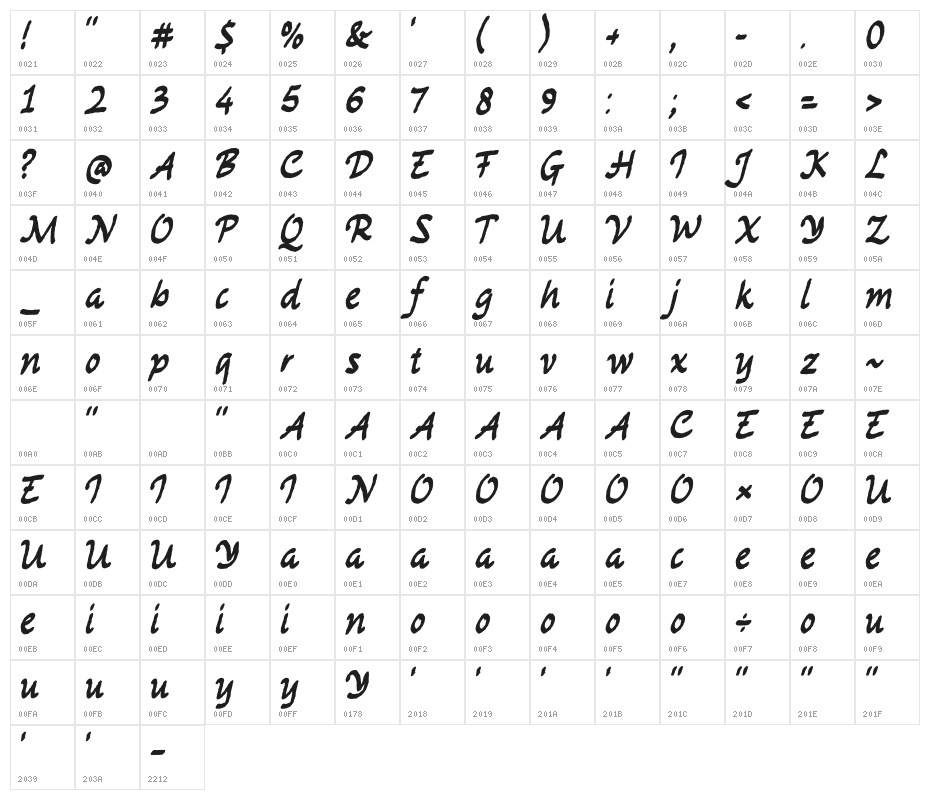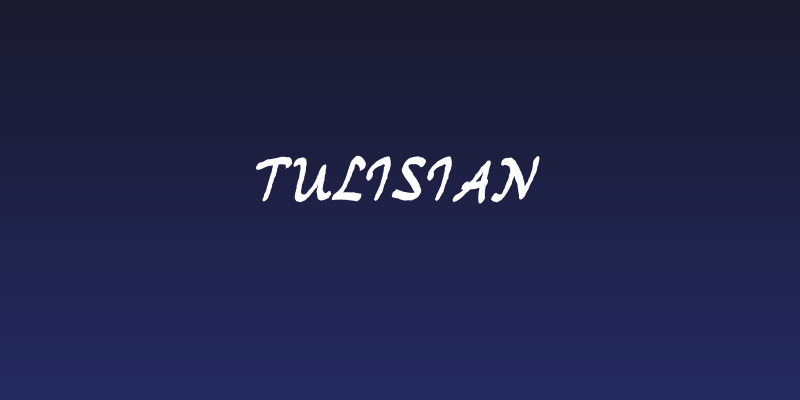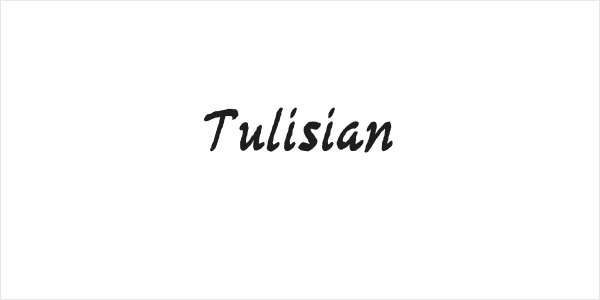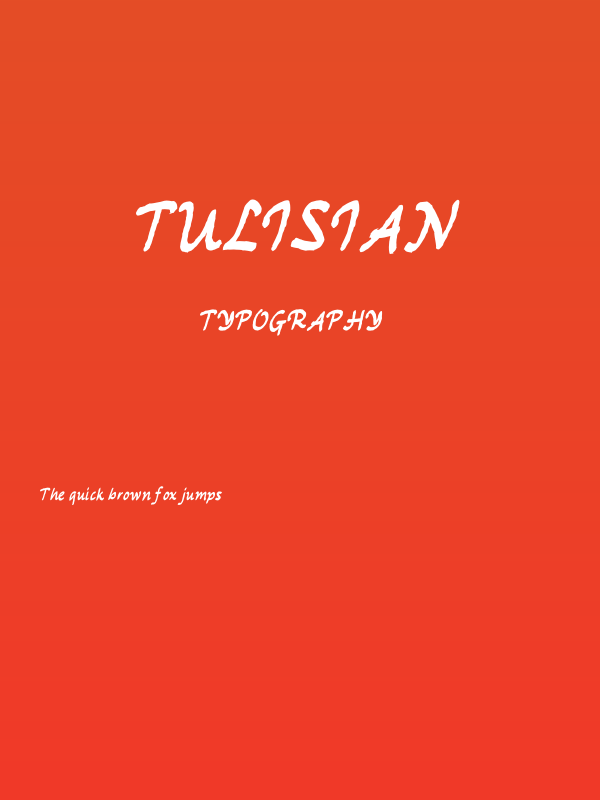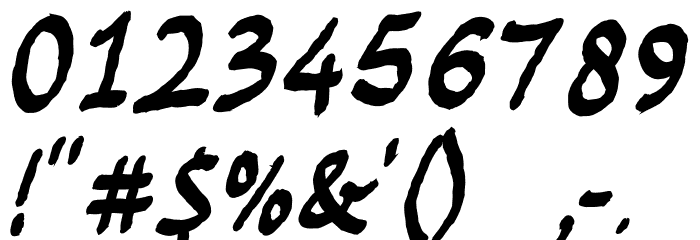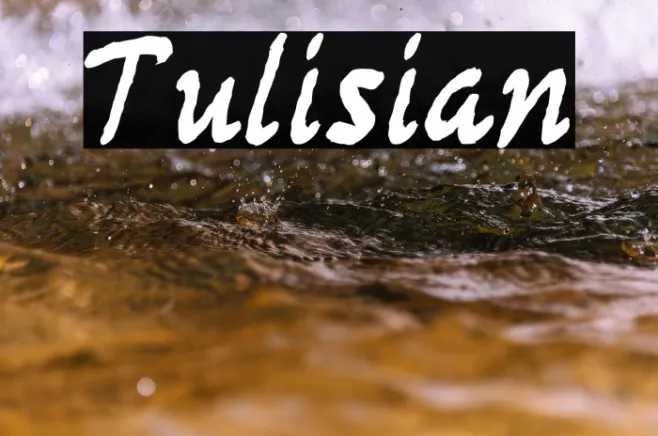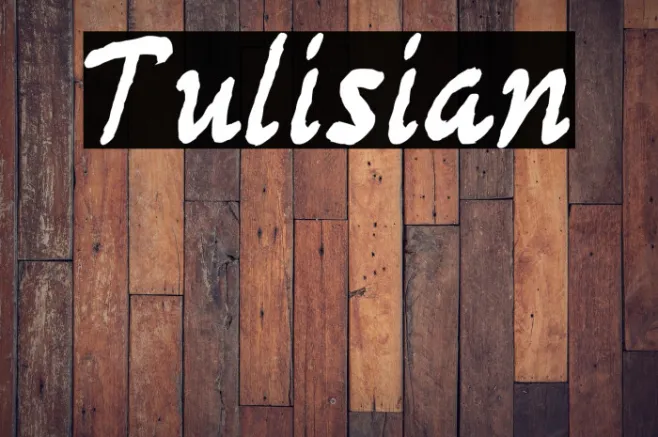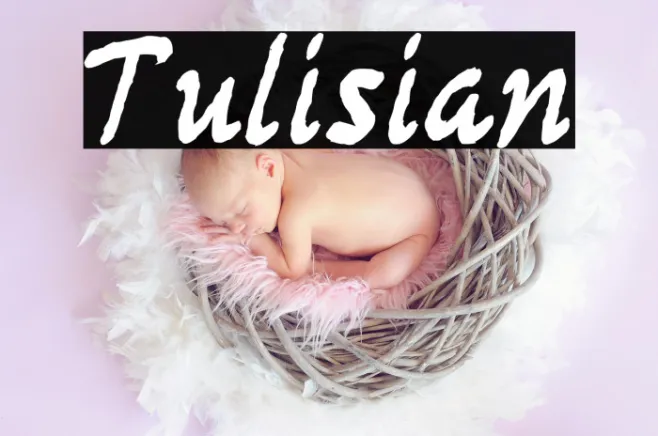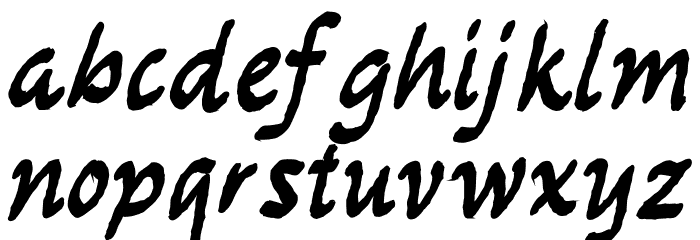
Tulisian Font
Tulisian Description
This font features a dynamic and expressive style, characterized by its fluid, handwritten appearance. The letters are slightly slanted, giving a sense of motion and energy. The strokes are bold and confident, with varying thickness that adds to the organic feel of the font. The uppercase and lowercase letters maintain a consistent style, with smooth curves and sharp edges that create a harmonious balance. The numerals and special characters are designed to match the overall aesthetic, ensuring a cohesive look across all text elements. This font is ideal for projects that require a personal touch or a creative flair.
TULISIAN UPPERCASE
TULISIAN LOWERCASE
TULISIAN OTHER CHARS